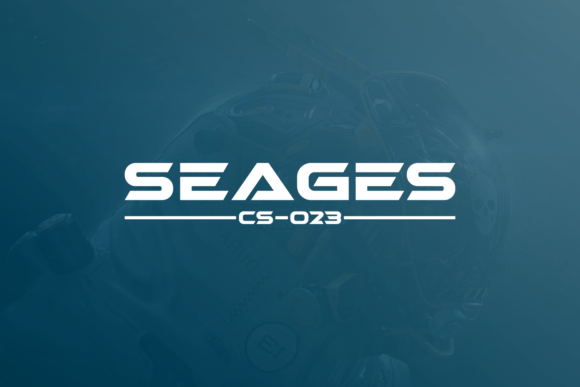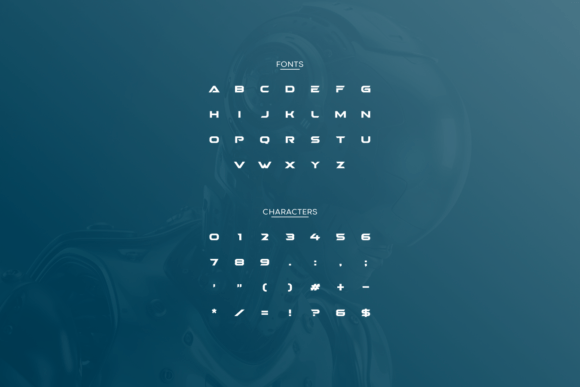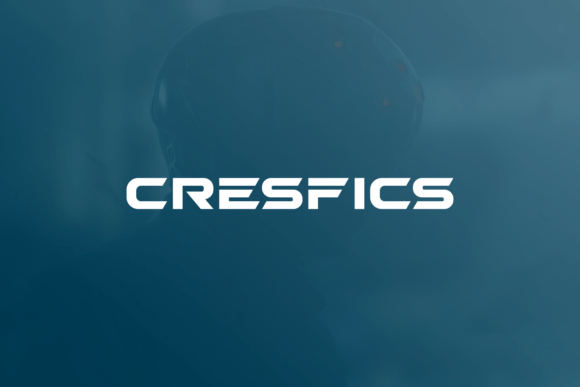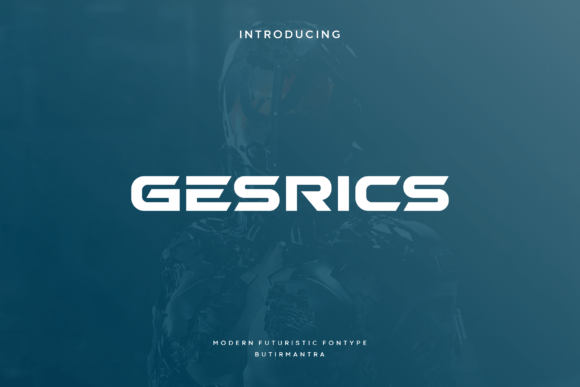
Introducing Gesrics Font: The Ultimate Modern Display Font
In the world of typography, fonts play a crucial role in conveying messages, expressing creativity, and setting the tone for a brand or design. With the numerous font options available, finding the perfect one that stands out from the crowd can be a daunting task. However, if you’re looking for a modern, elegant, and futuristic display font that can elevate your designs, look no further than Gesrics Font.
What is Gesrics Font?
Gesrics Font is a stunning display font designed to make a statement. Its sleek and sophisticated lines make it perfect for a wide range of design applications, from web design and logos to magazines, posters, business cards, and more. With its unique and futuristic style, Gesrics Font is sure to grab attention and leave a lasting impression.
Key Features of Gesrics Font
- Modern and Elegant Design: Gesrics Font boasts a modern and elegant design that exudes sophistication and style.
- Futuristic Style: The font’s futuristic style makes it perfect for designs that require a cutting-edge look and feel.
- Highly Versatile: Gesrics Font can be used for a wide range of design applications, from web design and logos to print materials like magazines, posters, and business cards.
- Unique Touch: The font’s unique style ensures that your designs stand out from the crowd and leave a lasting impression.
Why Choose Gesrics Font?
With so many fonts available, why choose Gesrics Font? Here are a few compelling reasons:
- Enhance Your Brand’s Visual Identity: Gesrics Font can help you create a strong visual identity for your brand, setting you apart from competitors and making your brand more memorable.
- Perfect for Creative Projects: Whether you’re working on a web design project, creating a logo, or designing a poster, Gesrics Font is the perfect choice.
- Easily Readable: Despite its futuristic style, Gesrics Font is easily readable, making it perfect for body text and headlines.
Design Applications for Gesrics Font
Gesrics Font is an incredibly versatile font that can be used for a wide range of design applications, including:
- Web Design: Use Gesrics Font to create stunning website headers, titles, and buttons that grab attention and make a statement.
- Logos: Create a unique and memorable logo for your brand using Gesrics Font.
- Magazines and Posters: Use Gesrics Font to create eye-catching headlines and titles for magazines and posters.
- Business Cards: Add a touch of elegance and sophistication to your business cards with Gesrics Font.
Tips for Using Gesrics Font
To get the most out of Gesrics Font, here are a few tips:
- Experiment with Font Sizes: Gesrics Font looks great in large and small sizes, so experiment with different font sizes to find the perfect fit for your design.
- Pair with Other Fonts: Pair Gesrics Font with other fonts to create a unique and visually appealing combination.
- Use for Headlines and Titles: Use Gesrics Font for headlines and titles to grab attention and make a statement.
| Font Name | Gesrics Font |
| Author | Letterna |